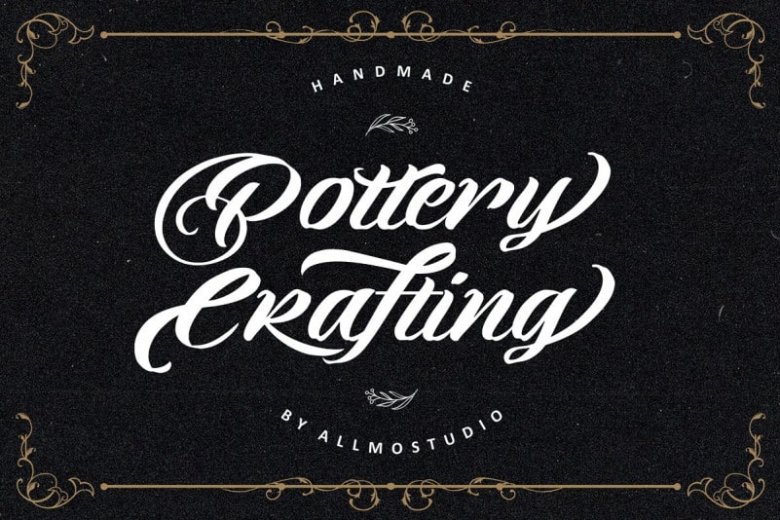
Pottery Crafting Script Font
Introducing a new calligraphy, retro bold script called Pottery Crafting Font. Bring back to the 70’s era Pottery Crafting inspired by posters and album covers of funk, disco and rockabilly music with bold and fun style.
Pottery Crafting came with open type features such stylistic alternates, stylistic sets, swash & ligatures good for logotype, poster, badge, book cover, tshirt design, packaging and any more.